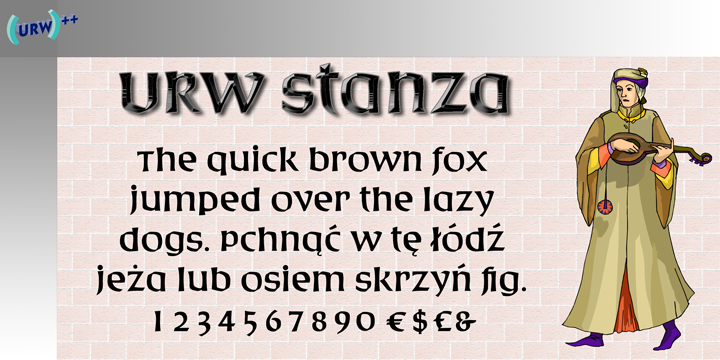
Stanza Font is perfect for poetry publications, literary journal layouts, creative writing workshops, verse anthology designs, spoken word event materials, artistic book covers, lyrical music projects, and rhythmic editorial communications.
What makes Stanza Font exciting is its poetic elegance that beautifully captures the rhythmic flow and emotional depth of verse through typography that honors the sacred art of poetic expression and literary craftsmanship. The gracefully crafted letterforms showcase lyrical proportions with gentle cadence that mirrors the natural rhythm of spoken verse and written poetry, creating an immediate sense of literary sophistication and creative inspiration. This extraordinary typeface embodies artistic expression, literary beauty, and creative soul, making it the perfect choice for poets, writers, and literary organizations who celebrate the transformative power of language and want typography that reflects their deep appreciation for the art of words.
The Stanza Font family includes multiple weights from Light to Bold, with corresponding italic styles for complete poetic expression. The extensive character set features literary symbols, poetic punctuation marks, verse ornaments, and artistic flourishes that enhance the sophisticated literary aesthetic across all publishing and creative writing design applications.
Literary professionals and creative writers seeking Stanza Font Free Download will discover exceptional opportunities for creating memorable, emotionally resonant communications. This remarkable typeface transforms standard literary text into compelling poetic experiences that immediately communicate artistic depth, creative excellence, and literary sophistication. Whether you're designing poetry book layouts, creating literary magazine spreads, developing creative writing program materials, or crafting artistic event promotions, this font delivers outstanding results that honor poetic tradition while inspiring readers to connect with the profound beauty and emotional power of carefully crafted language and literary artistry.
The rhythmically balanced letter spacing and poetic construction make Stanza Font highly effective across both intimate poetry collection applications and larger literary festival displays. Its lyrical character ensures seamless integration into literary projects while maintaining excellent readability for contemplative reading experiences. From independent poetry chapbooks to major literary conference materials, this font consistently delivers the artistic gravitas that defines serious literary work and poetic excellence.